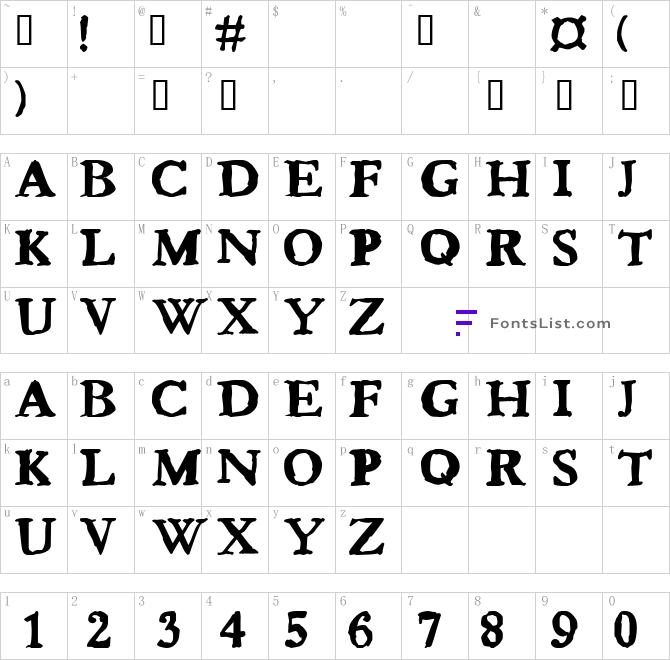
- Font Name:Bedbug
Bedbug.ttf is a very beautiful artistic font, Bedbug.ttf is widely used in the design and printing of various books and pictures,Bedbug.ttf has a strong visual impact,Bedbug.ttf is a commonly used font in newspapers, magazines and books, and is used in posters, e-commerce Poster design, store design, logo design, font design and other fields.Bedbug.